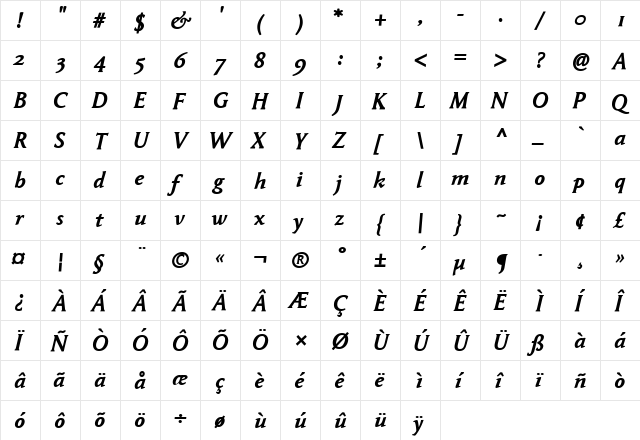
Garaline Regular Font Preview
Garaline Regular
Garaline Regular Font Details
Design Context for Garaline Typeface
Garaline offers clean, dependable letterforms without strong stylistic allegiance, making it a practical choice for designers who need flexibility.